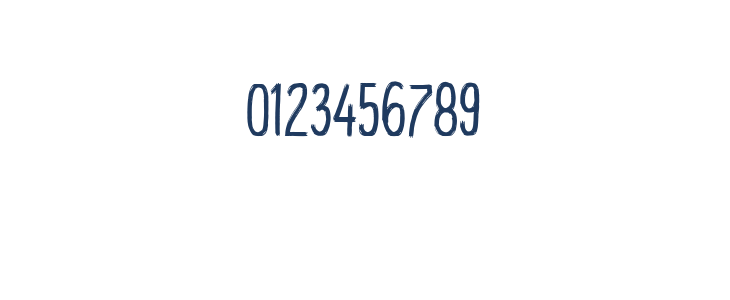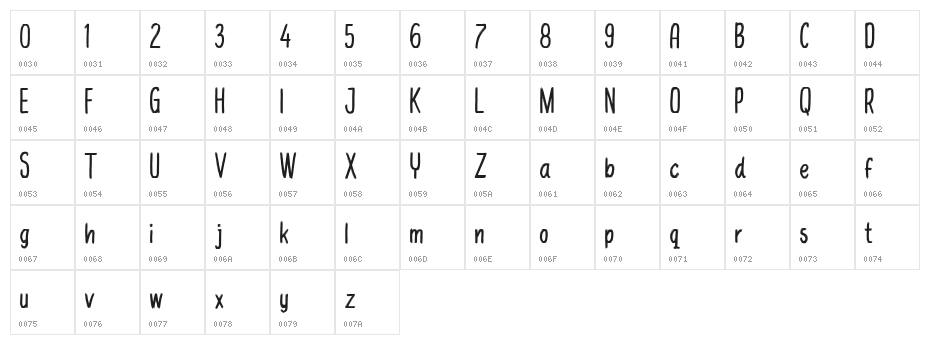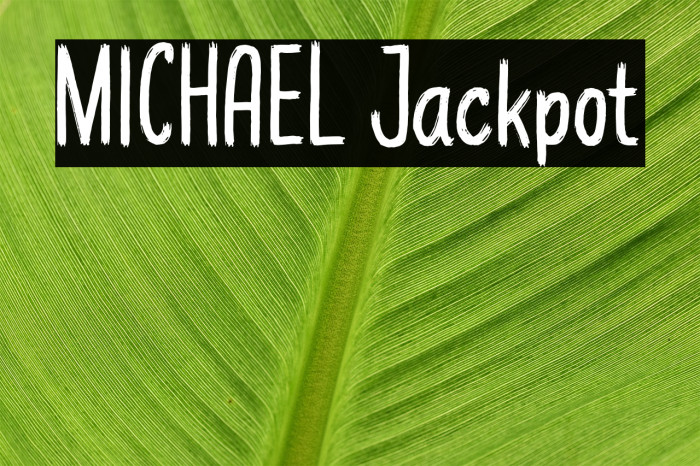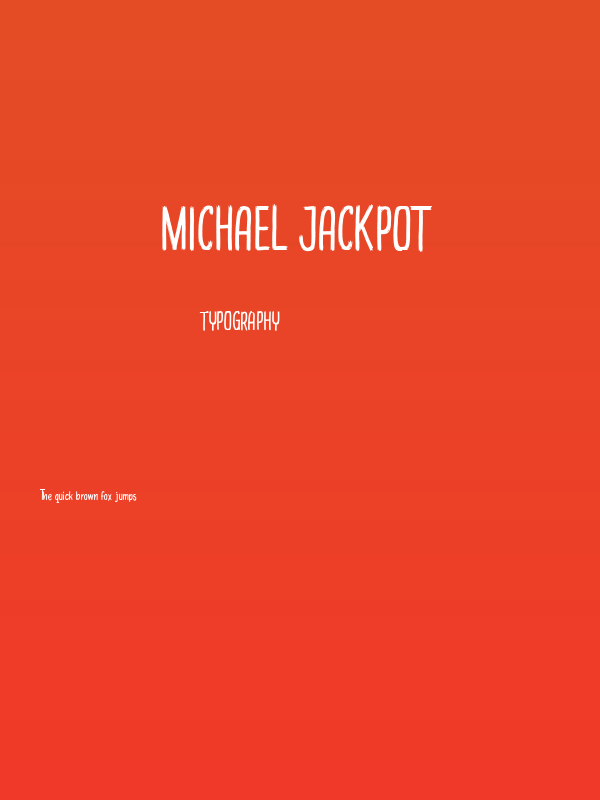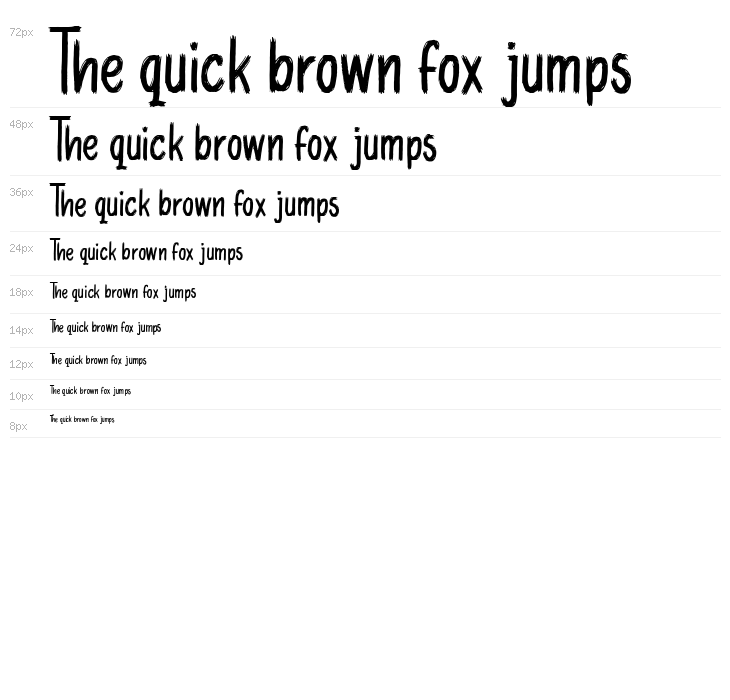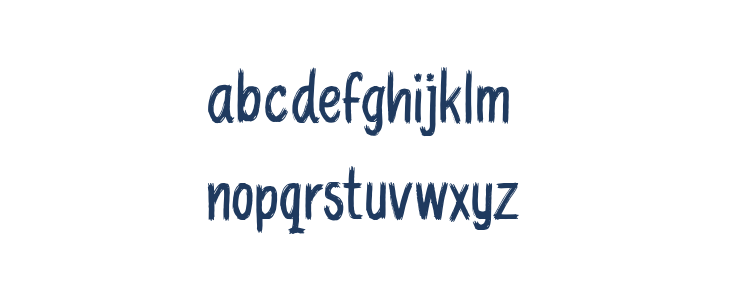
MICHAEL Jackpot Font
MICHAEL Jackpot Description
This font features a bold and dynamic style with a hand-drawn appearance, characterized by its brush-like strokes and slightly irregular edges. The uppercase and lowercase letters maintain a consistent height, giving it a uniform look while still retaining a playful and artistic flair. The numbers and special characters follow the same aesthetic, ensuring a cohesive design throughout. Its unique texture and energetic feel make it stand out, perfect for projects that require a touch of creativity and individuality.
| Proposed Projects | Ideal for creative projects such as posters, logos, branding materials, and social media graphics that require a bold and artistic touch. |